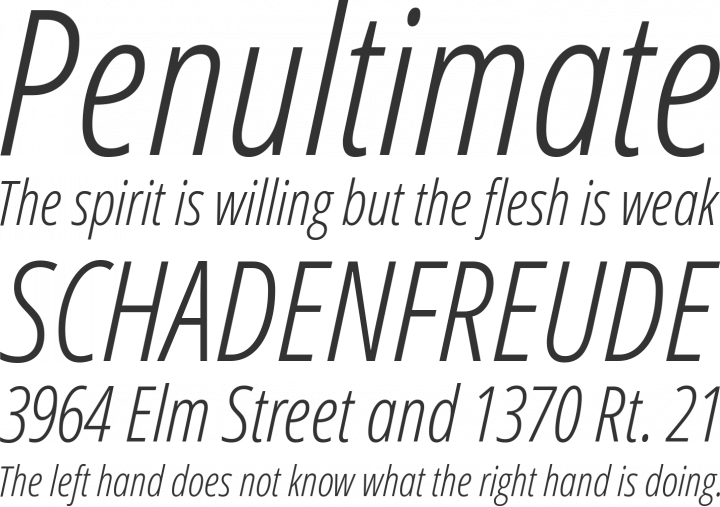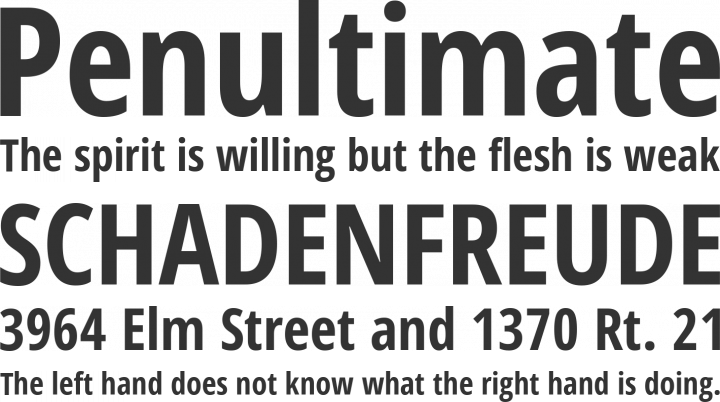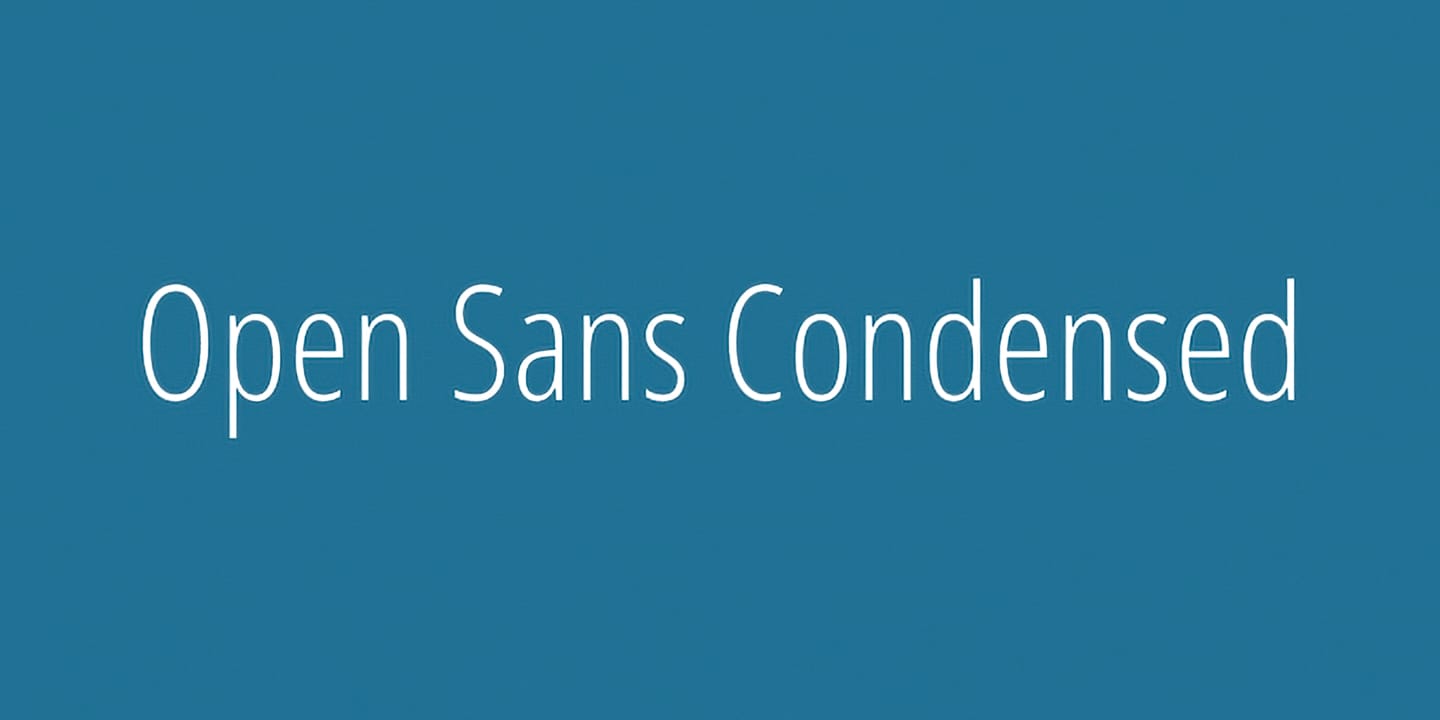
Open Sans Condensed is a versatile font family that is ideal for various design projects. It offers three distinct styles, allowing for flexibility in your typography choices. Whether you’re creating a website, brochure, or any other form of visual communication, this font provides a clean and modern aesthetic.
The three styles within the Open Sans Condensed family cater to different needs, helping you maintain consistency while emphasizing specific content. The font is easy to read, making it suitable for both headlines and body text.